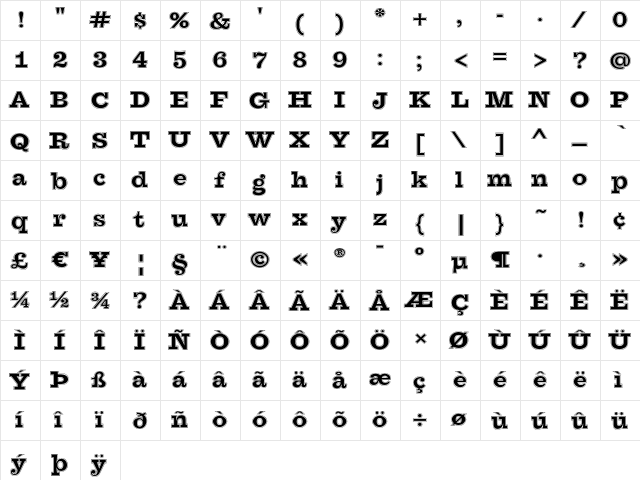
Farao College OT Regular
Design Context for Farao College OT Typeface
Farao College OT brings high-energy athletic personality to the page — its confident, muscular forms are built for impact.
Built for sports team identities, athletic apparel, event posters, and high-energy promotional material.
Font Pairing: Use alongside a condensed or geometric sans for supporting copy — keep the pairing bold, functional, and free of ornament.
Pro Tip: Farao College OT thrives on contrast — try it large, bold, and tight against a clean background for maximum visual impact.